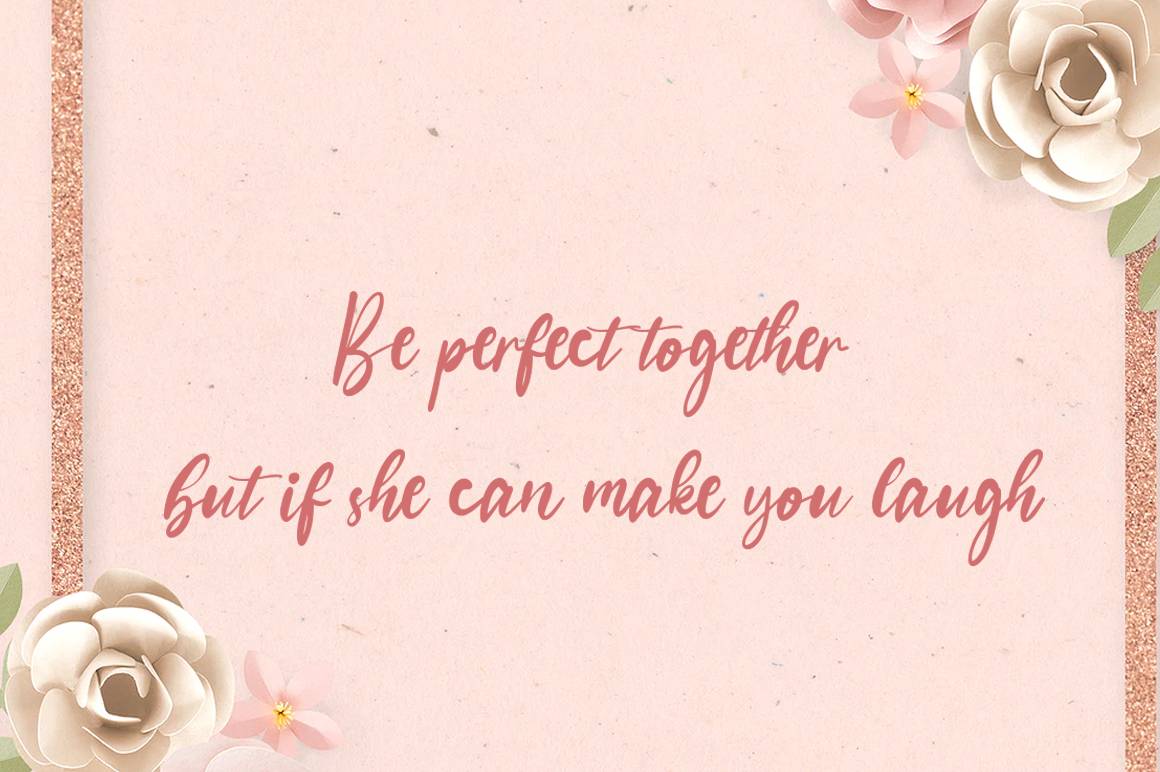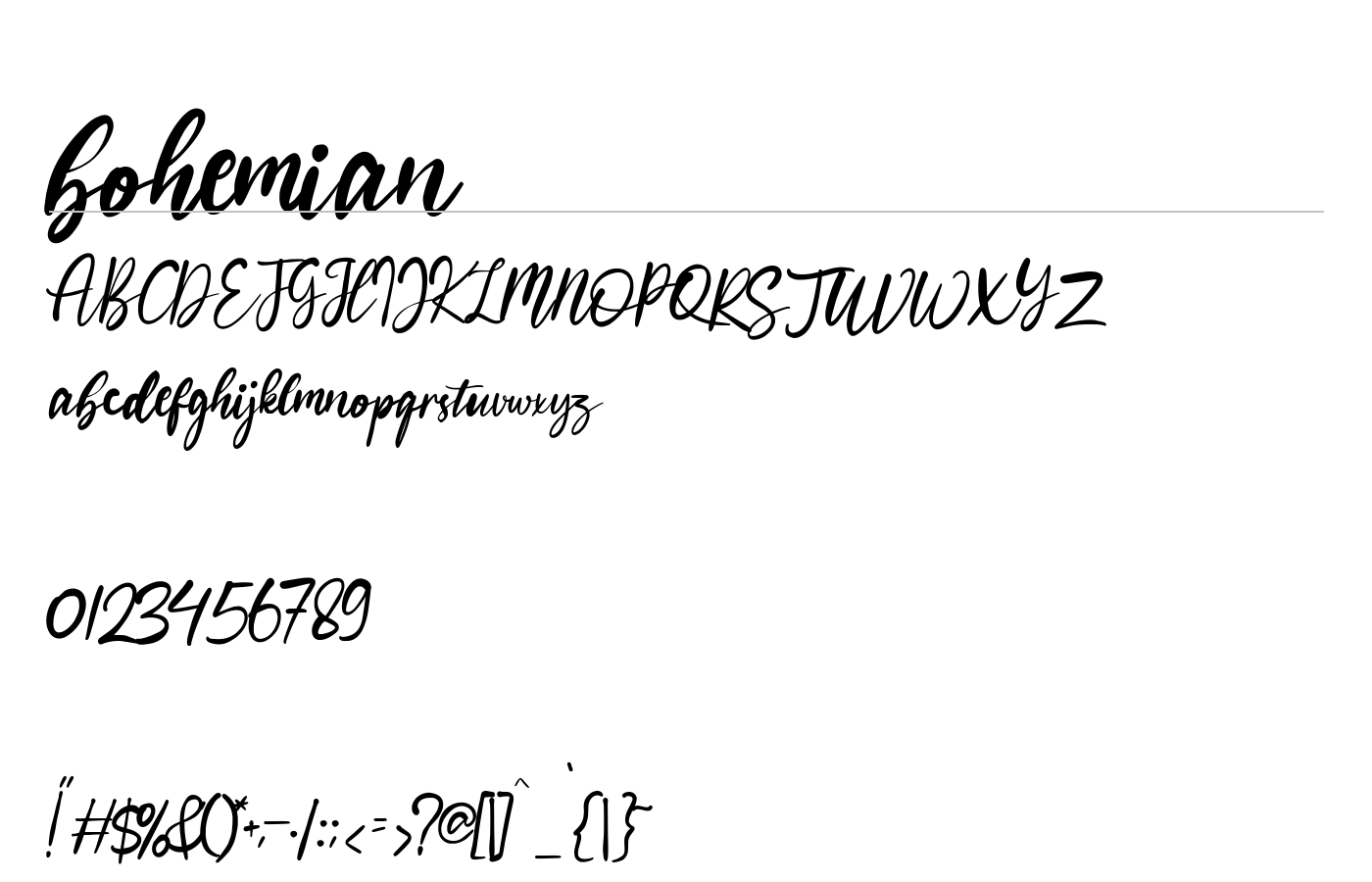
Bohemian is a modern script font featuring a lively, hand-lettered style with smooth, thick-to-thin transitions that give it an elegant and friendly vibe. Its flowing strokes and casual yet refined appearance make it a great choice for creative branding, invitations, and lifestyle projects seeking a personal, artistic touch. This font shines in expressive headlines and decorative text where warmth and character are key.
Bohemian Font
About Bohemian Font
| Font family | Bohemian Font |
| Designer | Candra Hamdani |